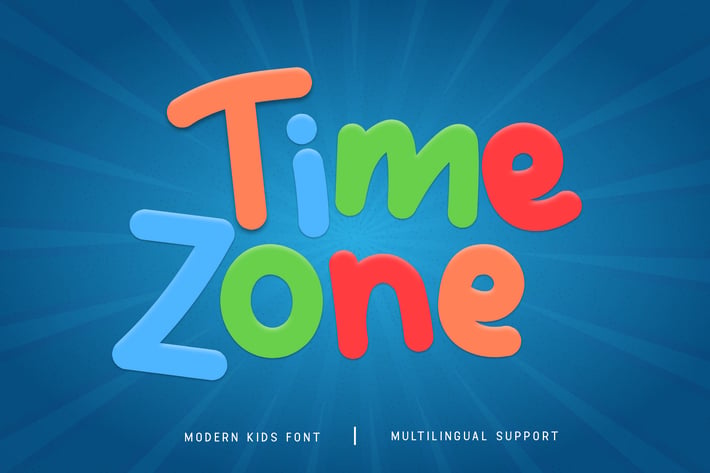
Time Zone - A Modern Kids Font
Time Zone is a playful and vibrant modern kids font designed to add a touch of fun and creativity to your design projects. With its bubbly shapes and friendly letterforms, Time Zone is perfect for children's books, playful posters, educational materials, and kid-friendly branding. This font captures the essence of youthful energy and imagination, ensuring your work stands out with a joyful and engaging style.
Crafted with a focus on fun, Time Zone features rounded and approachable characters that offer excellent readability and visual appeal. Its modern and playful design makes it ideal for both display and text purposes, providing a warm and inviting presence. The font’s versatility allows it to adapt seamlessly to various design contexts, from digital interfaces to printed materials, making it a valuable asset for any designer aiming to create cheerful and lively visuals.
Elevate your design projects with Time Zone, a font that embodies the spirit of fun and creativity for young audiences. Its unique style and adaptability make it an essential addition to any designer’s toolkit for crafting delightful and captivating designs. Enhance your work with Time Zone and experience the charm of modern kids' typography.